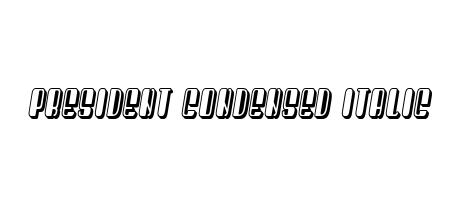
President
President Condensed Italic is a bold, assertive typeface. Its condensed form gives it a powerful, compact feel. The italic slant adds a touch of dynamism and elegance, preventing the boldness from feeling too heavy. The slightly exaggerated stroke contrast provides a retro, almost comic book-like energy. The overall effect is a confident, attention-grabbing font ideal for headlines or branding where impact is key.